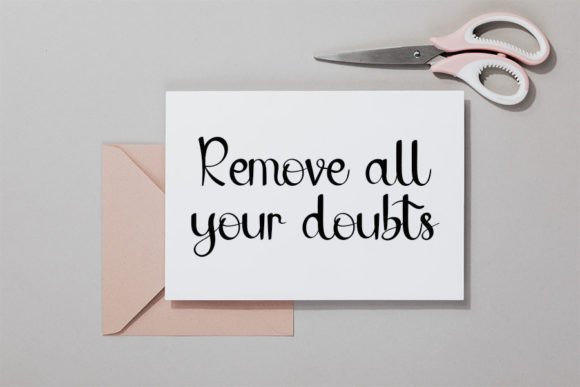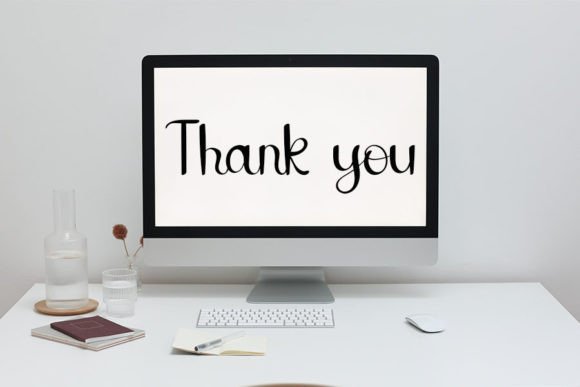
Introduction to Mailbox Font Font
Fonts play a crucial role in design, and the Mailbox Font font is a typeface that brings both character and versatility to any project. Whether you’re working on a branding project, a website, or a print design, the Mailbox Font font offers a unique style that can elevate your work.
Mailbox is a colorful handwritten font carefully created with a touch of elegance.
Clean and a little bit quirky, this font is the perfect fit for all of your logos, branding, social media, and crafty DIY projects .
Key Features of Mailbox Font Font
Why Choose Mailbox Font Font?
The Mailbox Font font is more than just a typeface – it’s a design tool that helps you communicate your message with style and clarity. Its unique character set and versatile design make it suitable for a wide range of applications, from elegant invitations to bold headlines.
With its carefully crafted letterforms and balanced proportions, the Mailbox Font font ensures readability and visual appeal across all mediums.
What makes Mailbox Font font special?
The Mailbox Font font stands out with its unique design, exceptional readability, and versatility across various design applications.